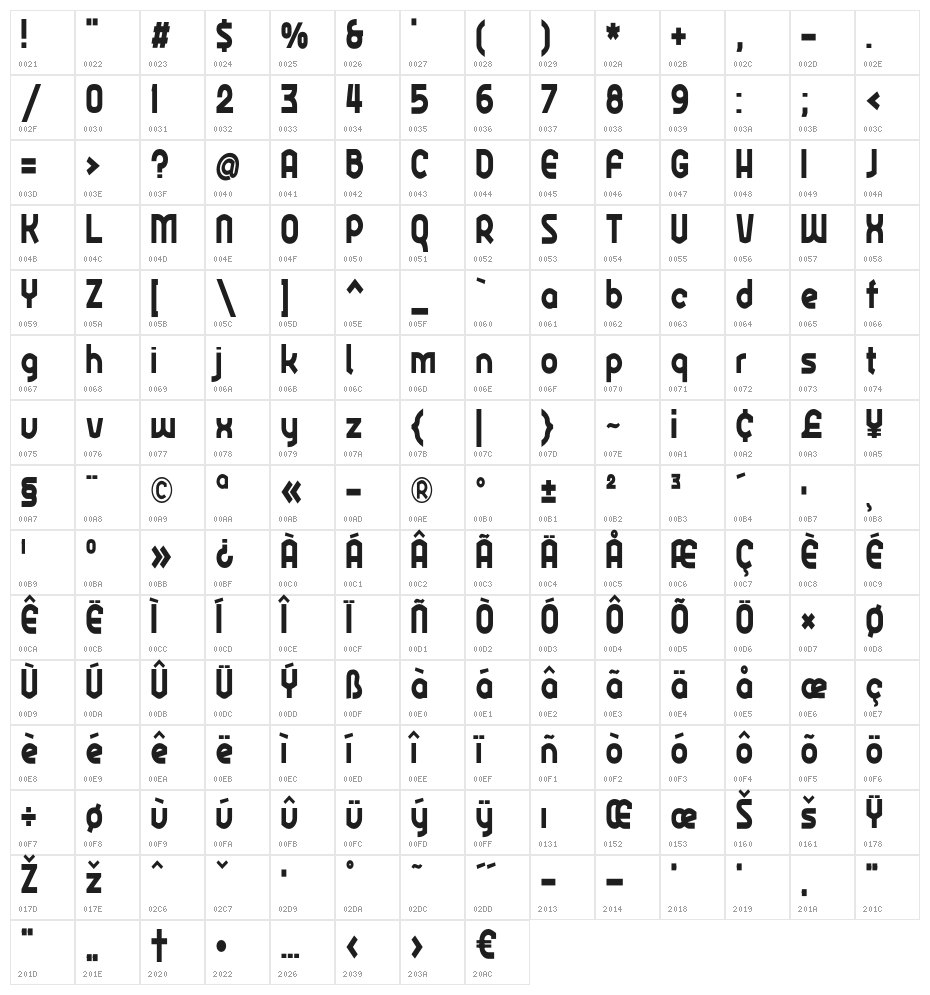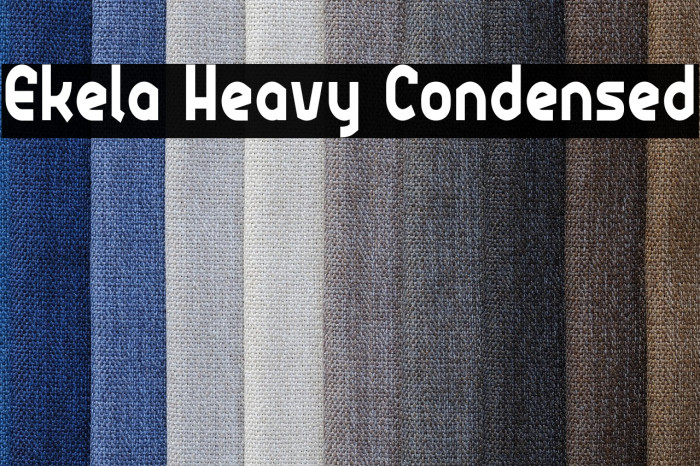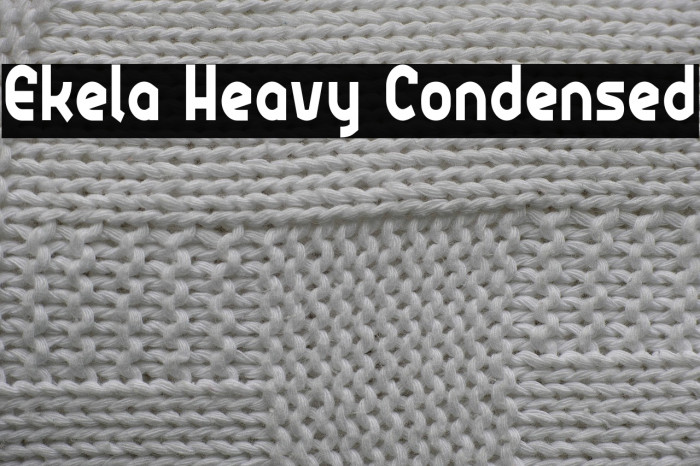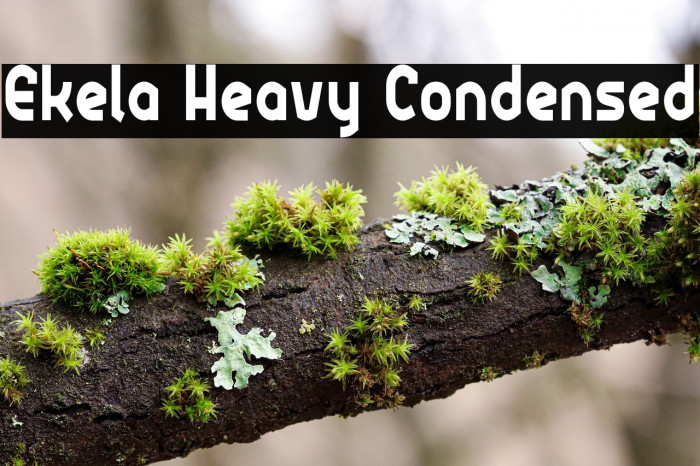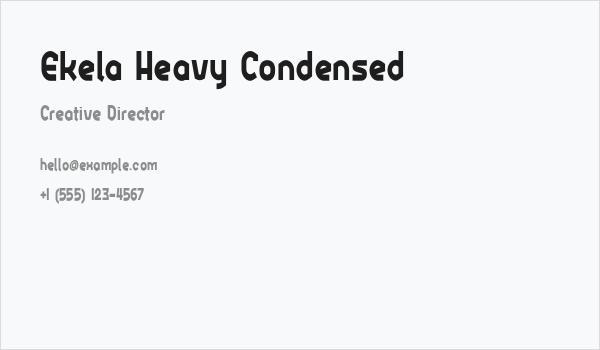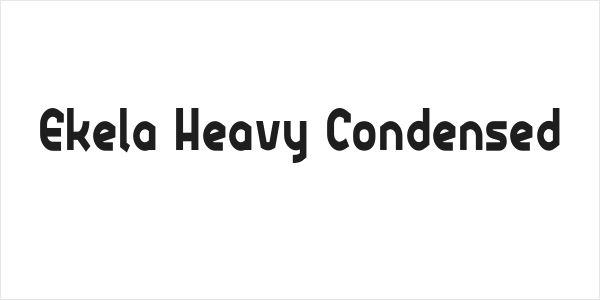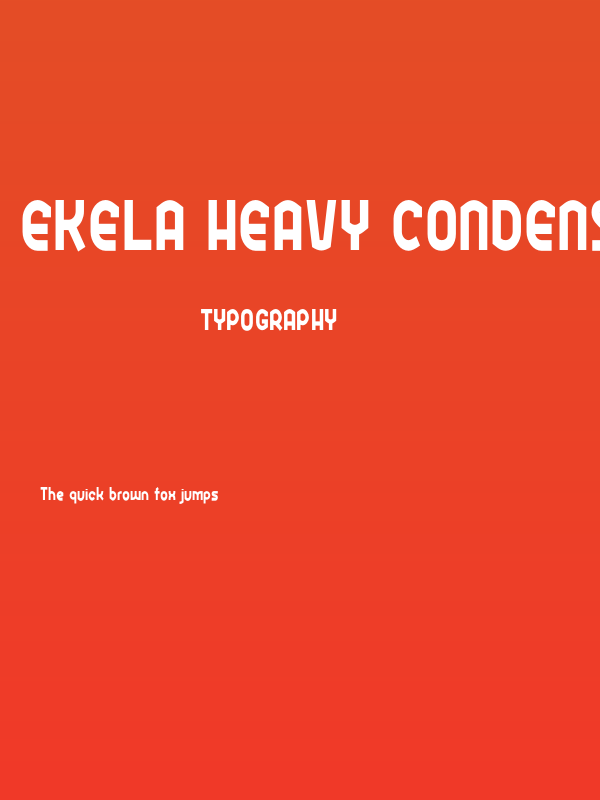
Ekela Heavy Condensed Font
Ekela Heavy Condensed Description
This font features a bold and condensed style with a strong geometric structure. The uppercase letters have a uniform height, while the lowercase letters maintain a consistent baseline, creating a cohesive look. The characters exhibit a modern and industrial feel, with sharp angles and clean lines. The numerals are equally bold, ensuring readability and impact. Special characters are designed with the same boldness, making them stand out effectively. This font is ideal for projects that require a strong visual presence.